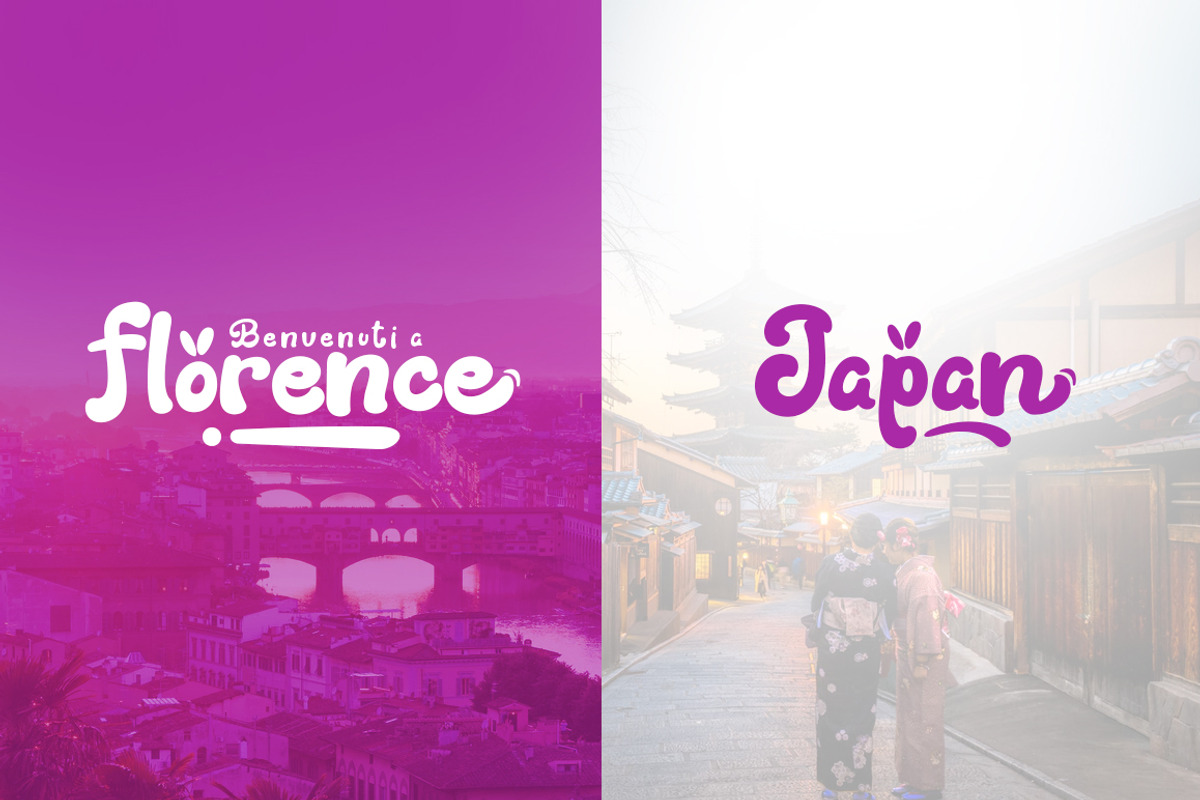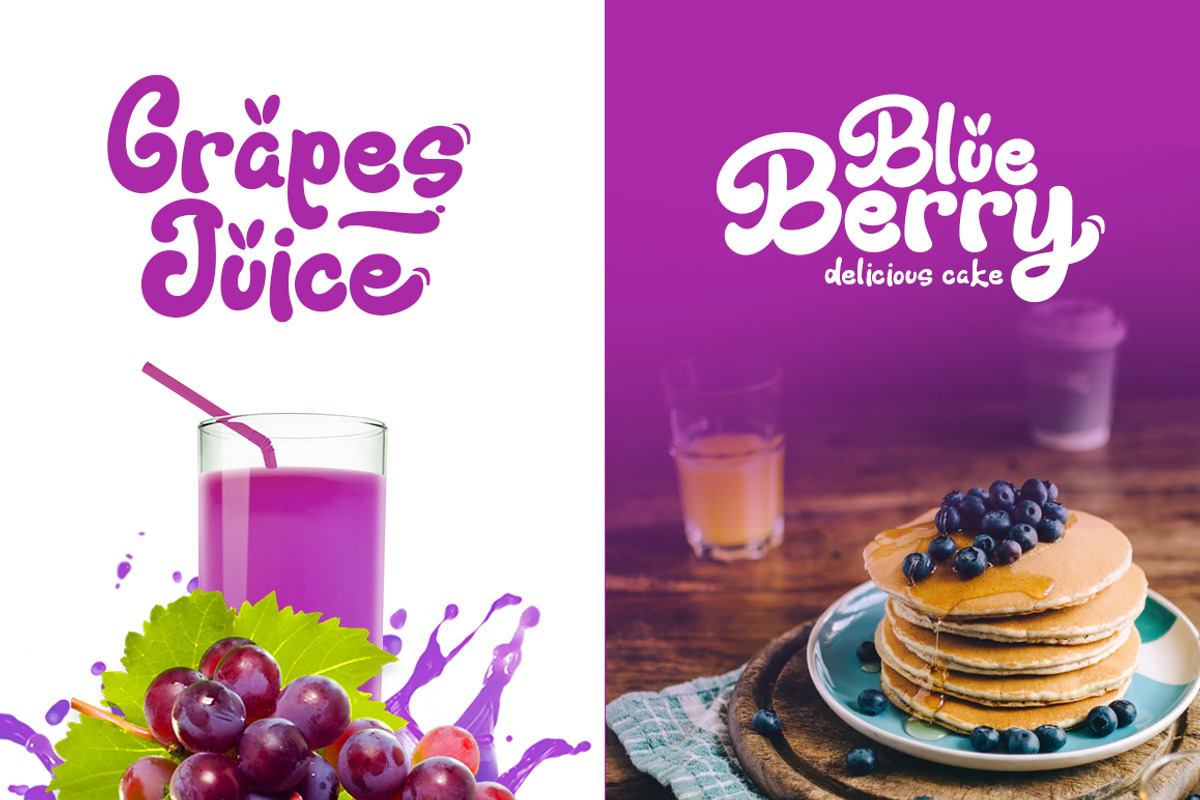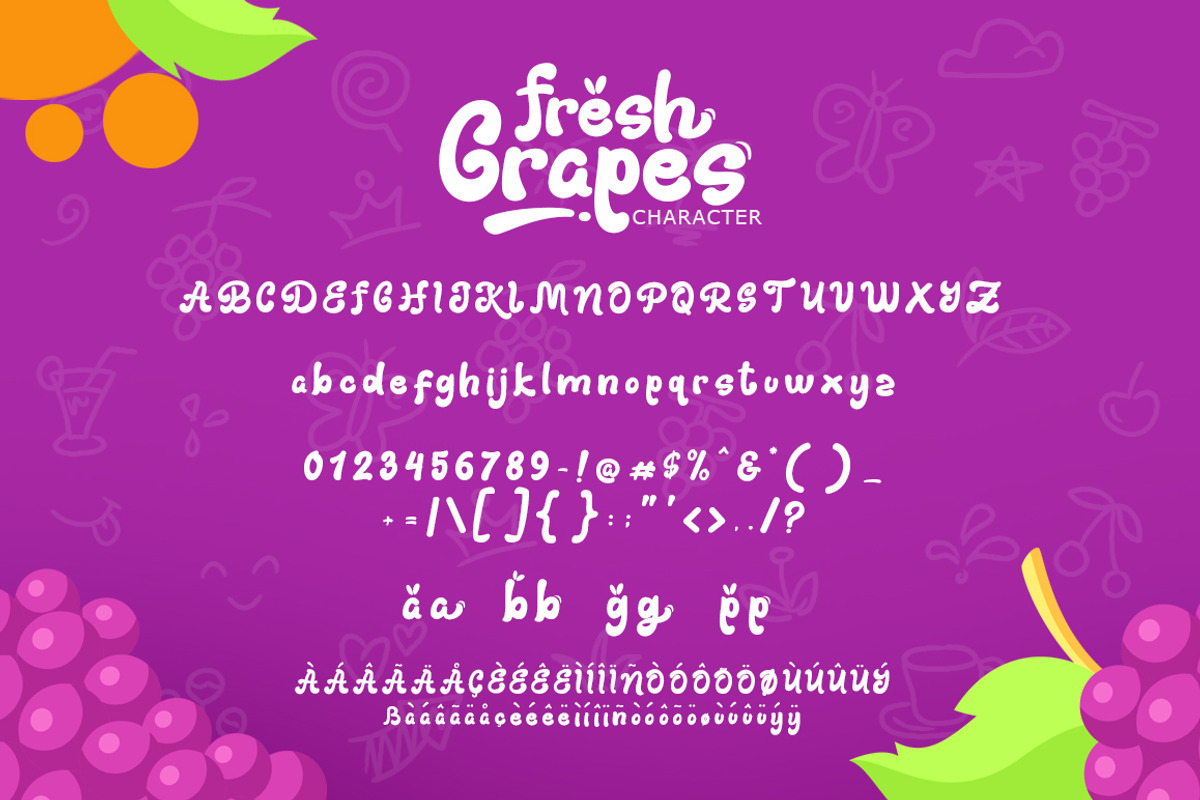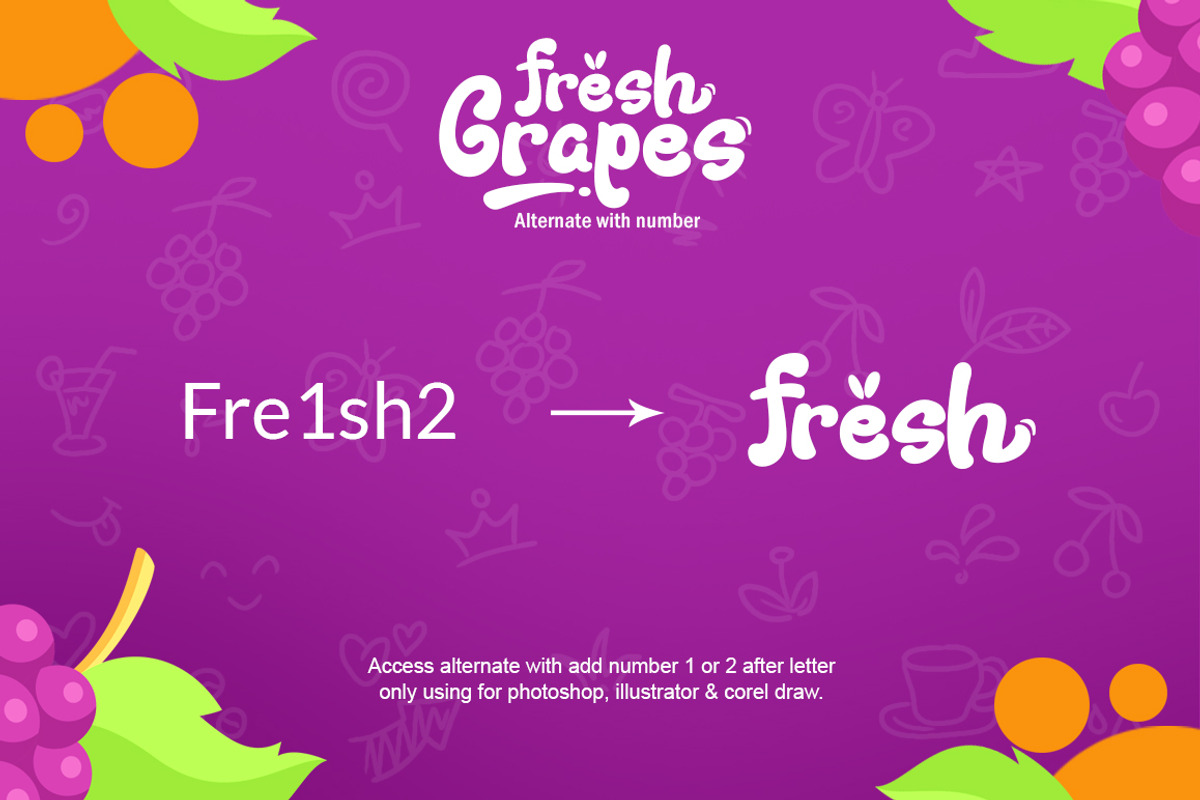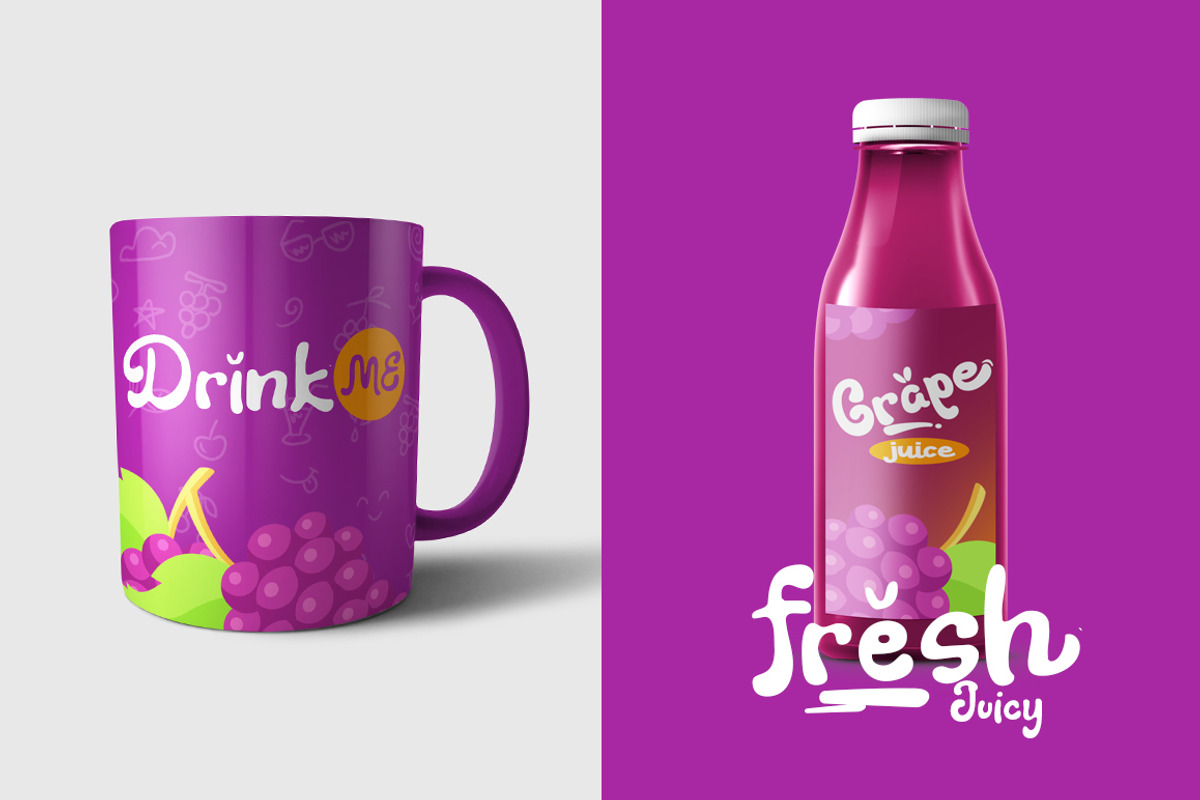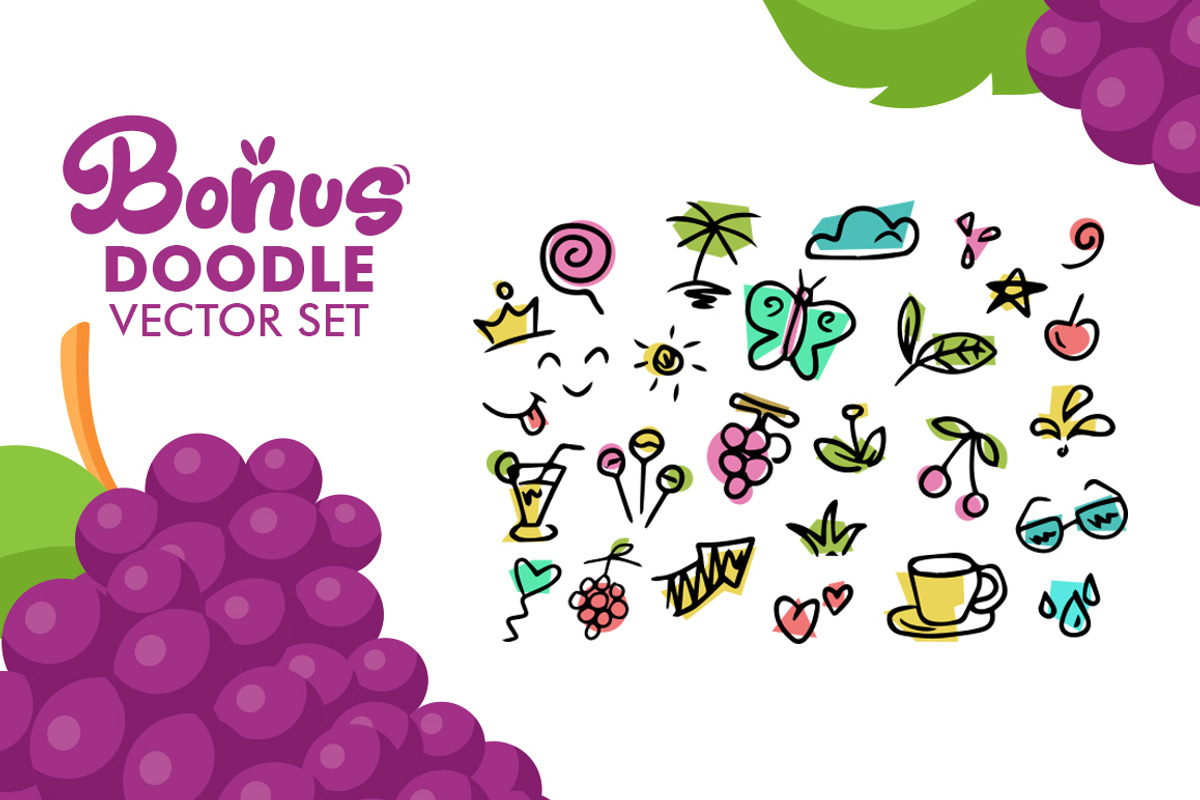
Fresh Grapes Font
Fresh Grapes Display Font is a fun bold script font, fresh & modern style . Fresh Grapes Display Font suitable for logo, branding, greeting card, poster and any design that you create.
Punctuation & Numeral
Stylistic alternates with number 1 & 2 after lowercase
You can access alternate with add number 1 & 2, after letter. all lowercase have one stylistic alternate. (working only on photoshop, illustrator & coreldraw)
For example: you can write Fre1sh2 on the tester box
Fresh Grapes Font by khurasan fits naturally into Branding, posters, packaging, typography.